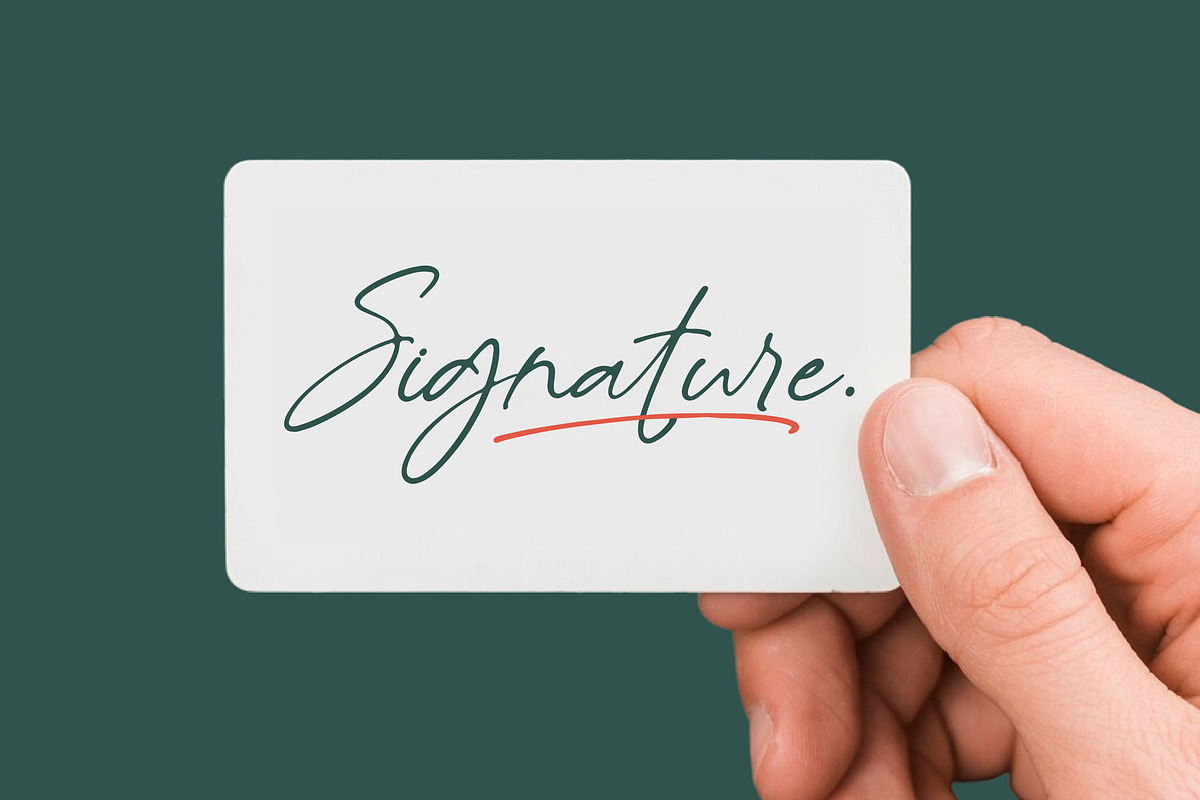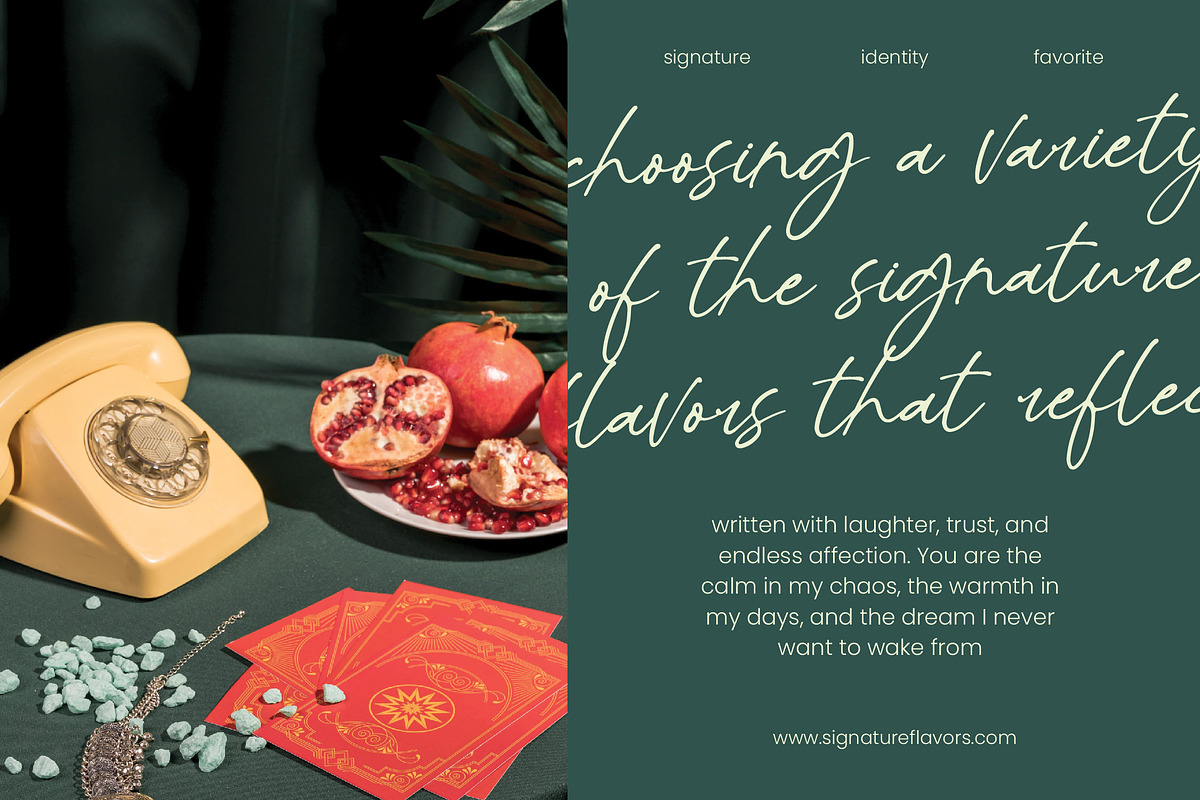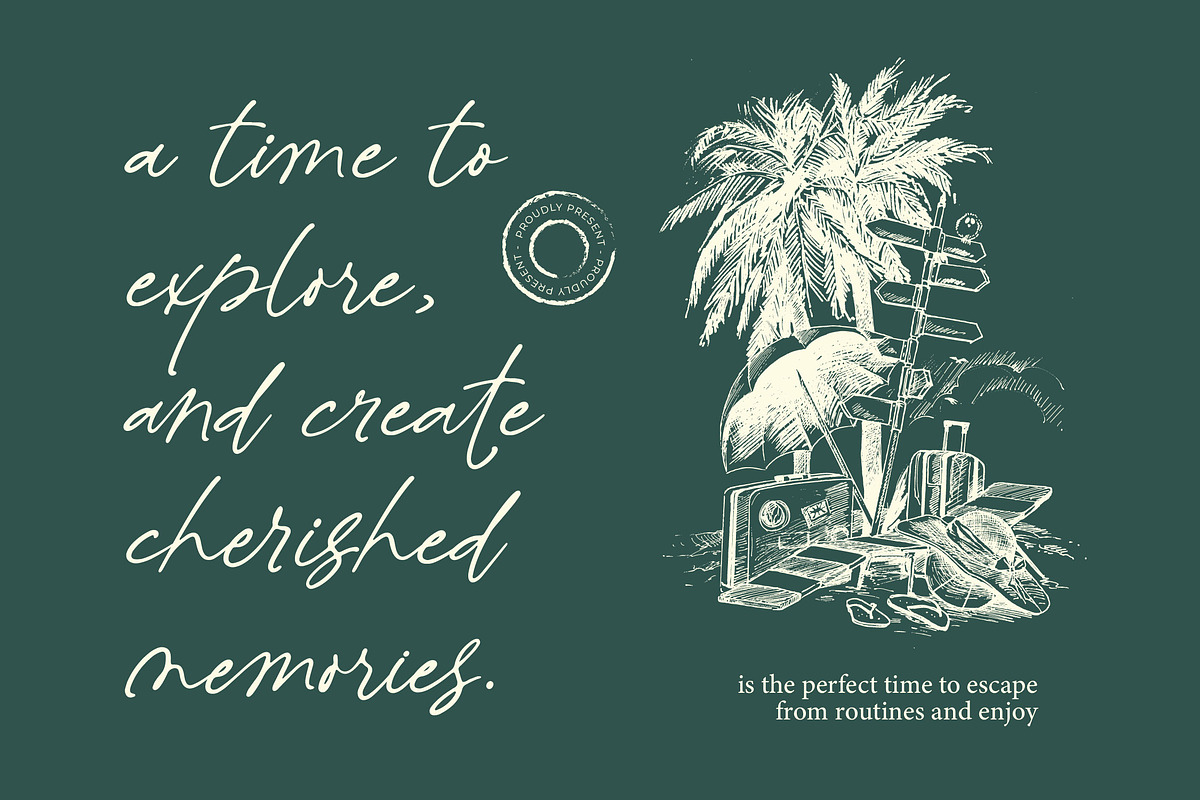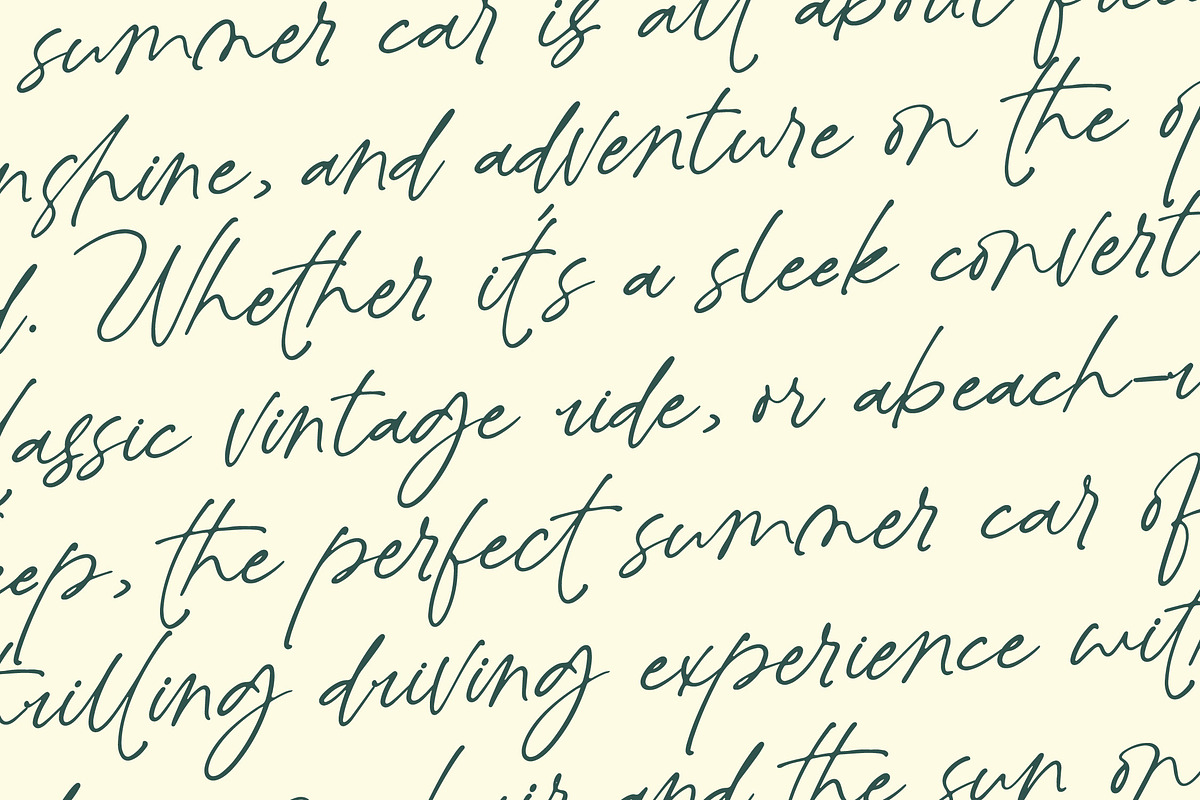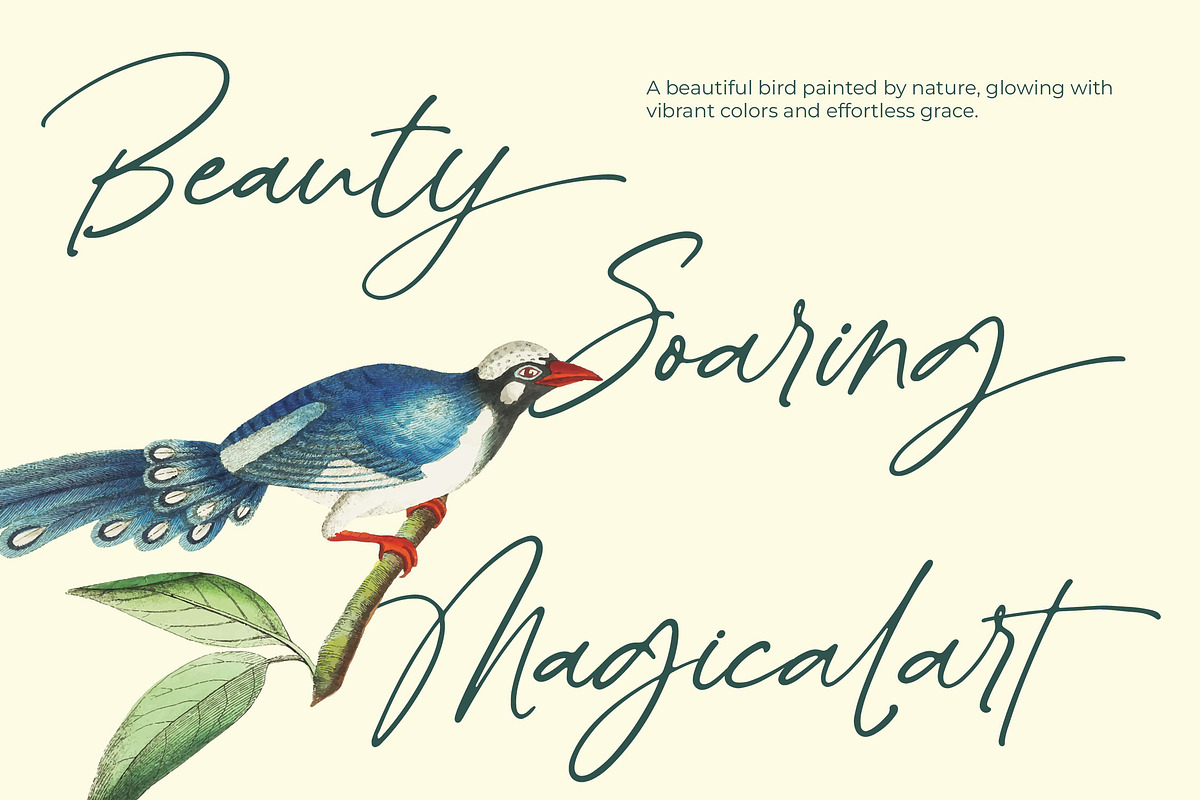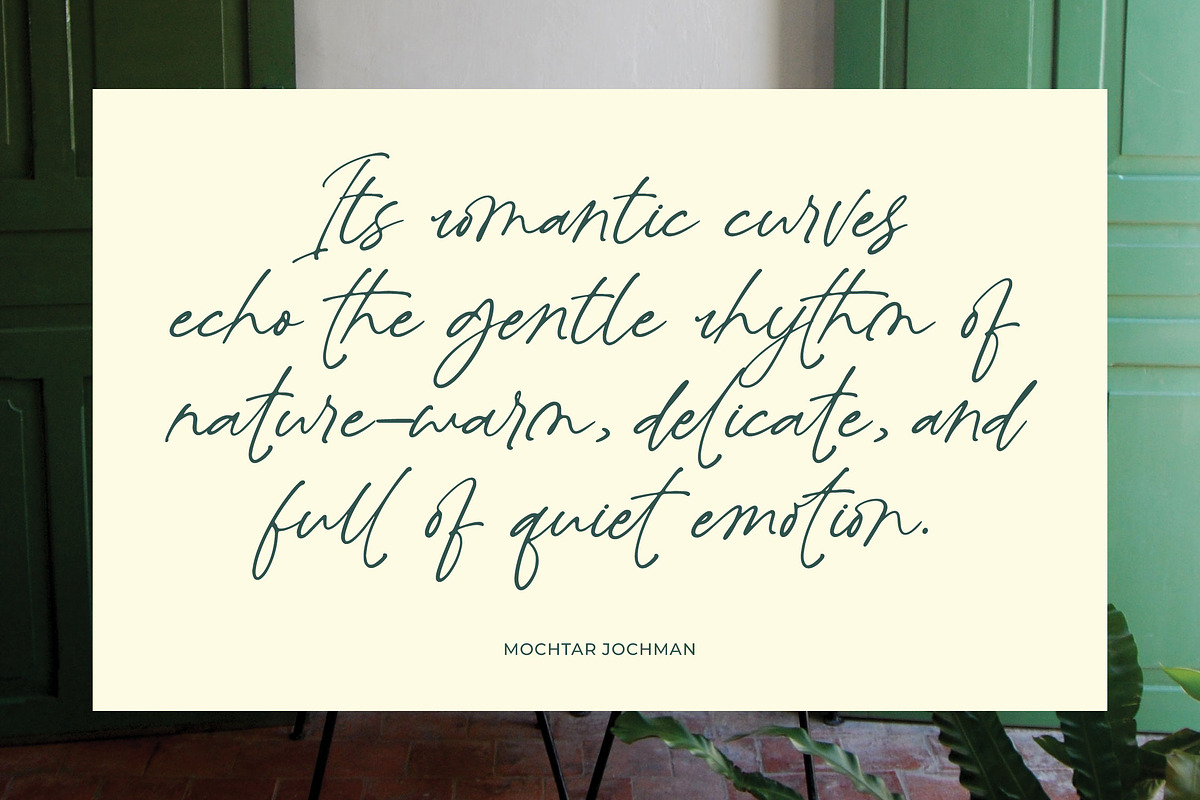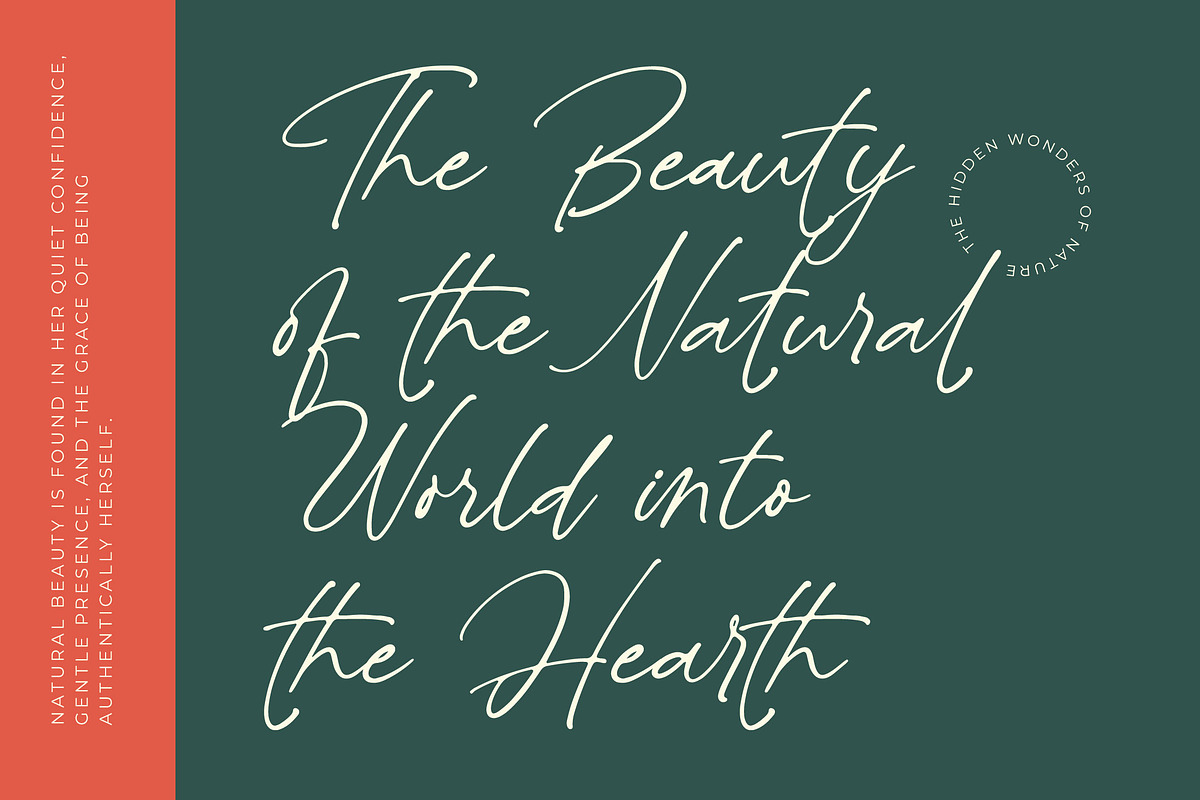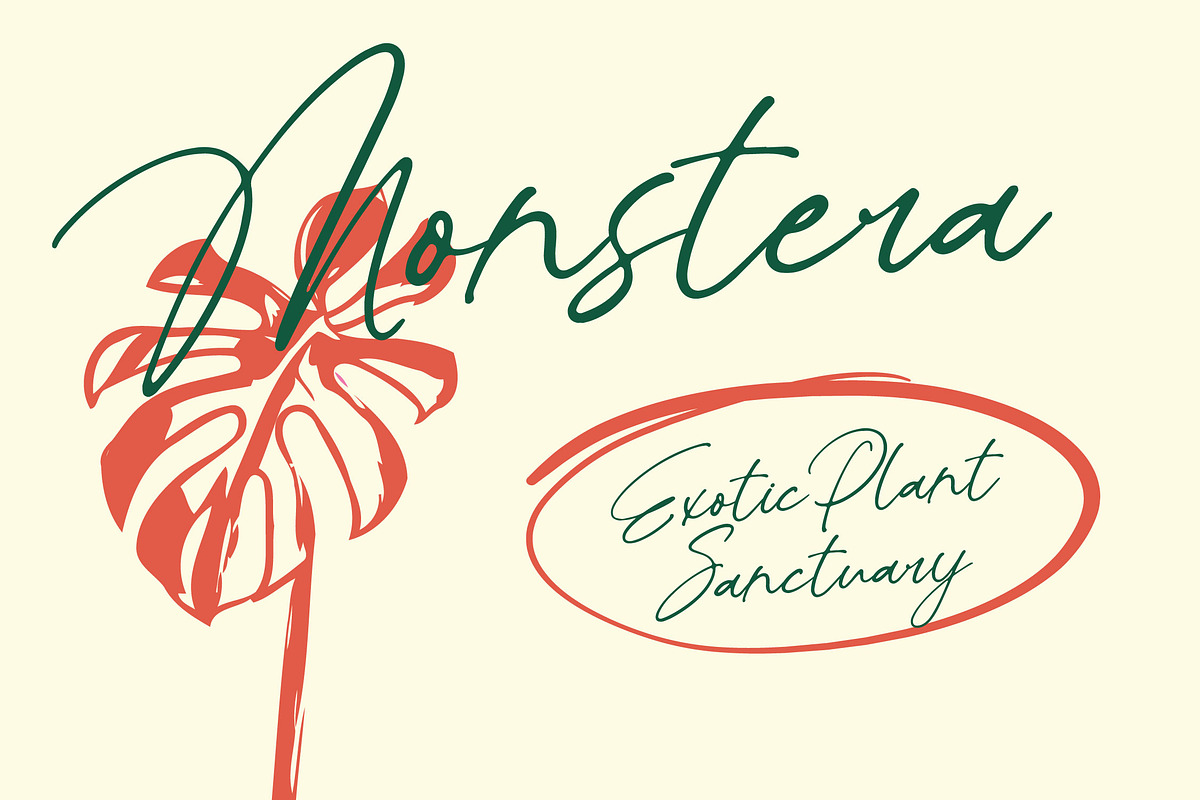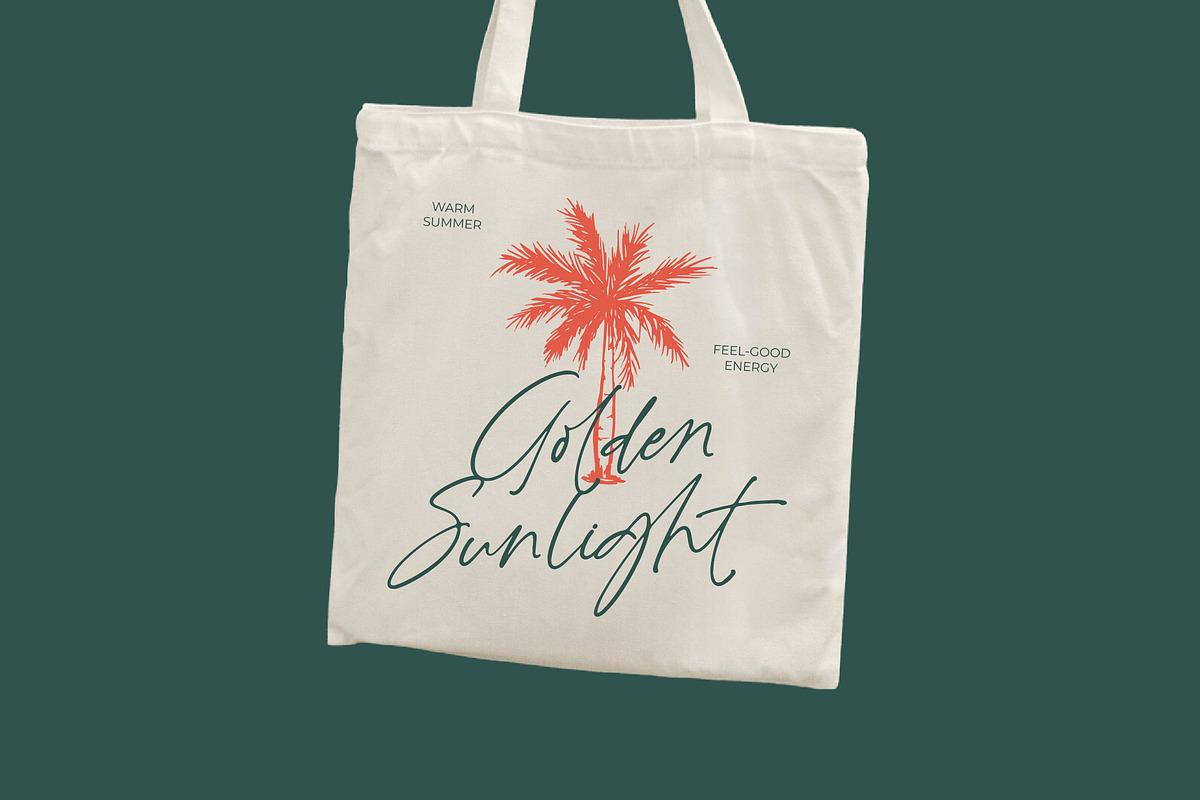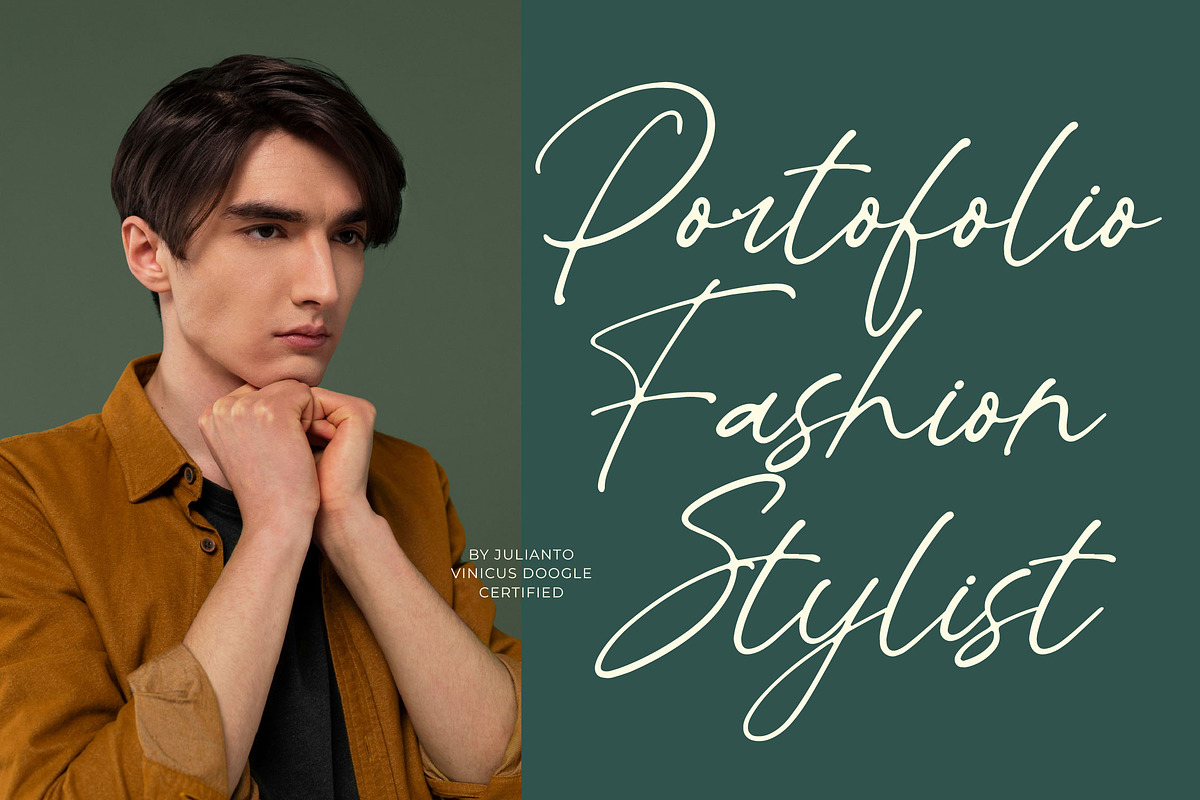
Peglastone Handwritten Ink Font
Peglastone - Handwritten Ink Font , Peglastone is a refined handwritten ink font with smooth, delicate strokes and a naturally flowing rhythm. Designed with 98 ligatures and 27 alternates, it captures the authentic feel of real handwriting—clean, effortless, and stylish. Perfect for branding, personal signatures, wedding designs, lifestyle content, product packaging, and any creative project that needs a modern, handwritten elegance. Its subtle ink-texture curves bring warmth and personality without losing professionalism.